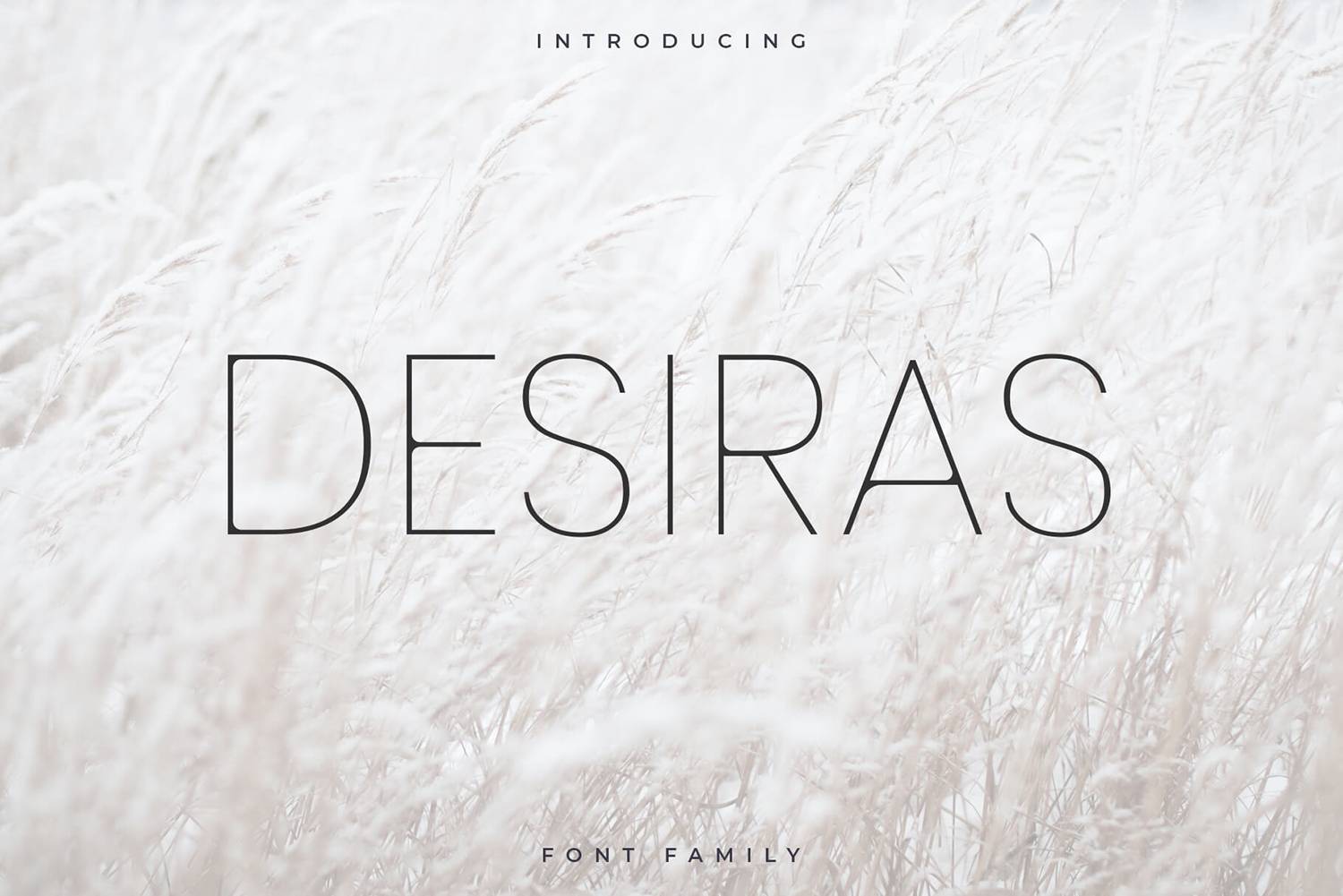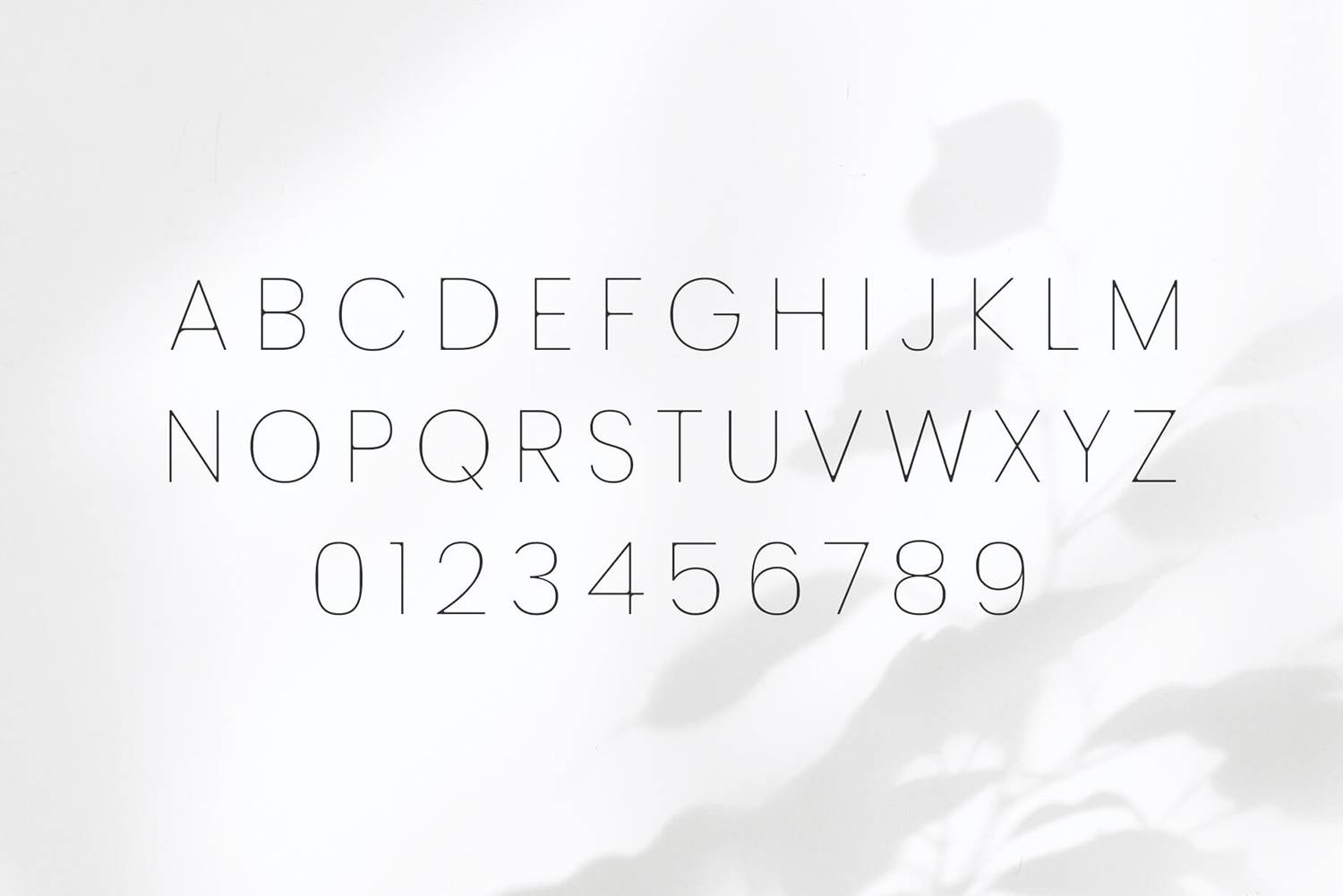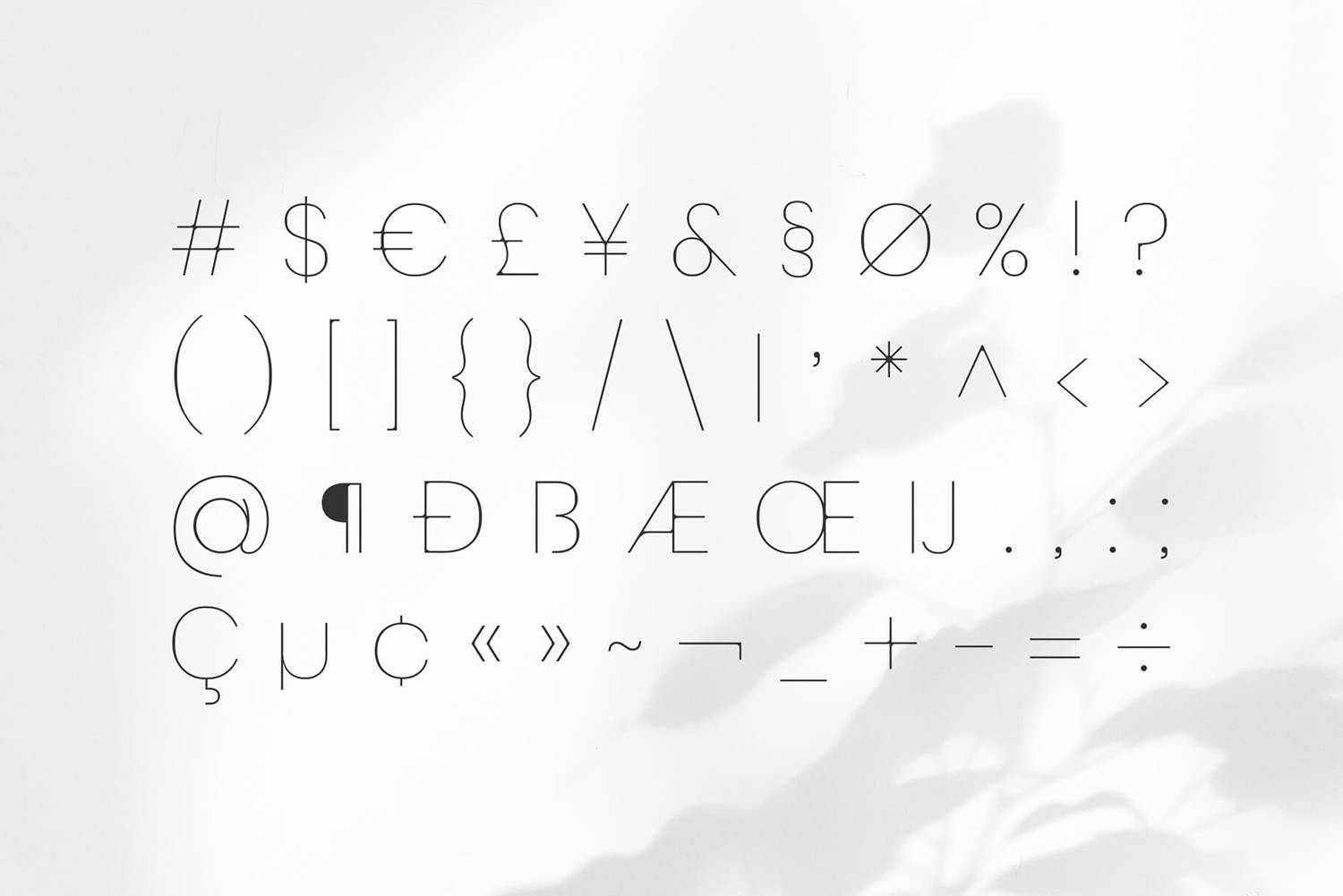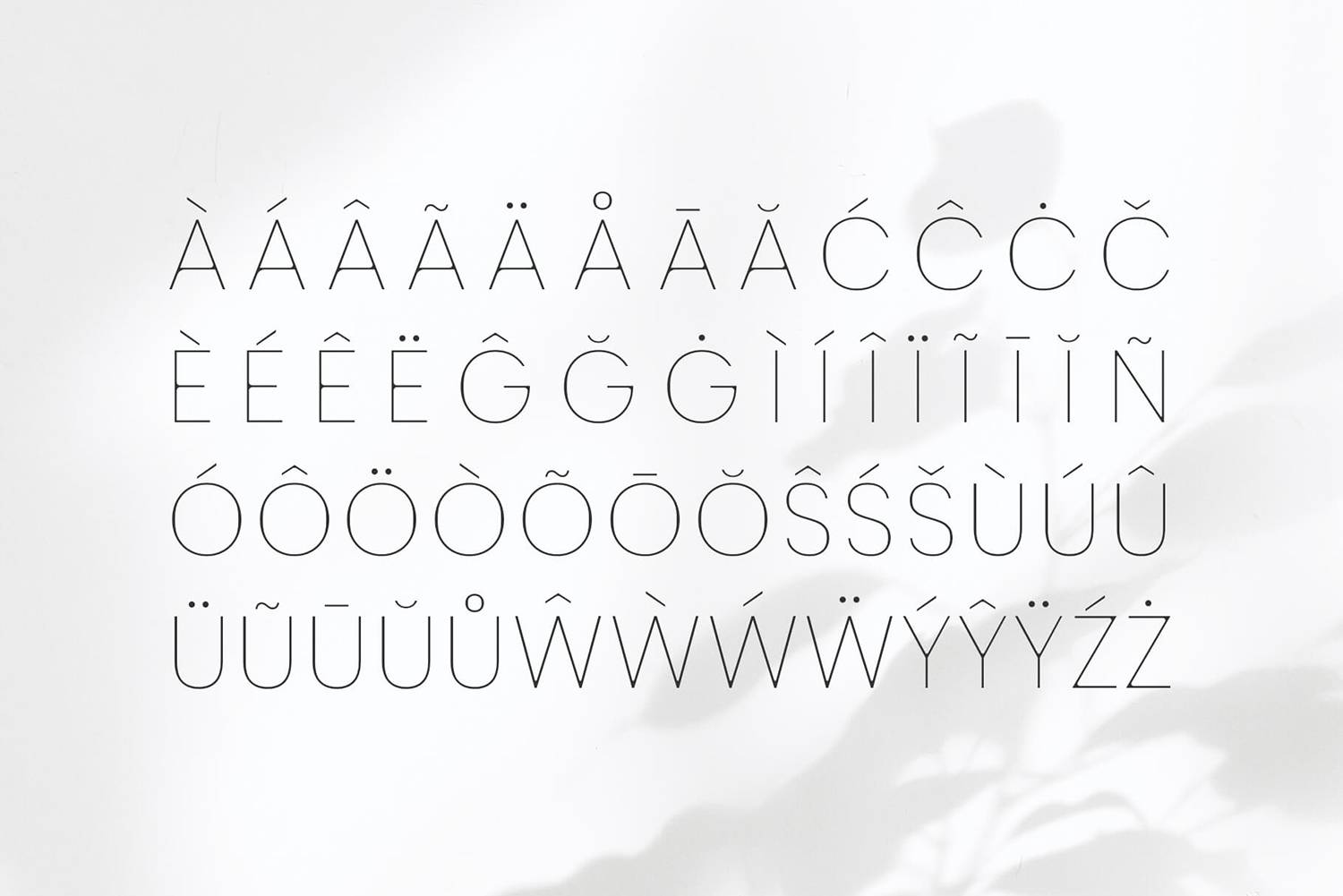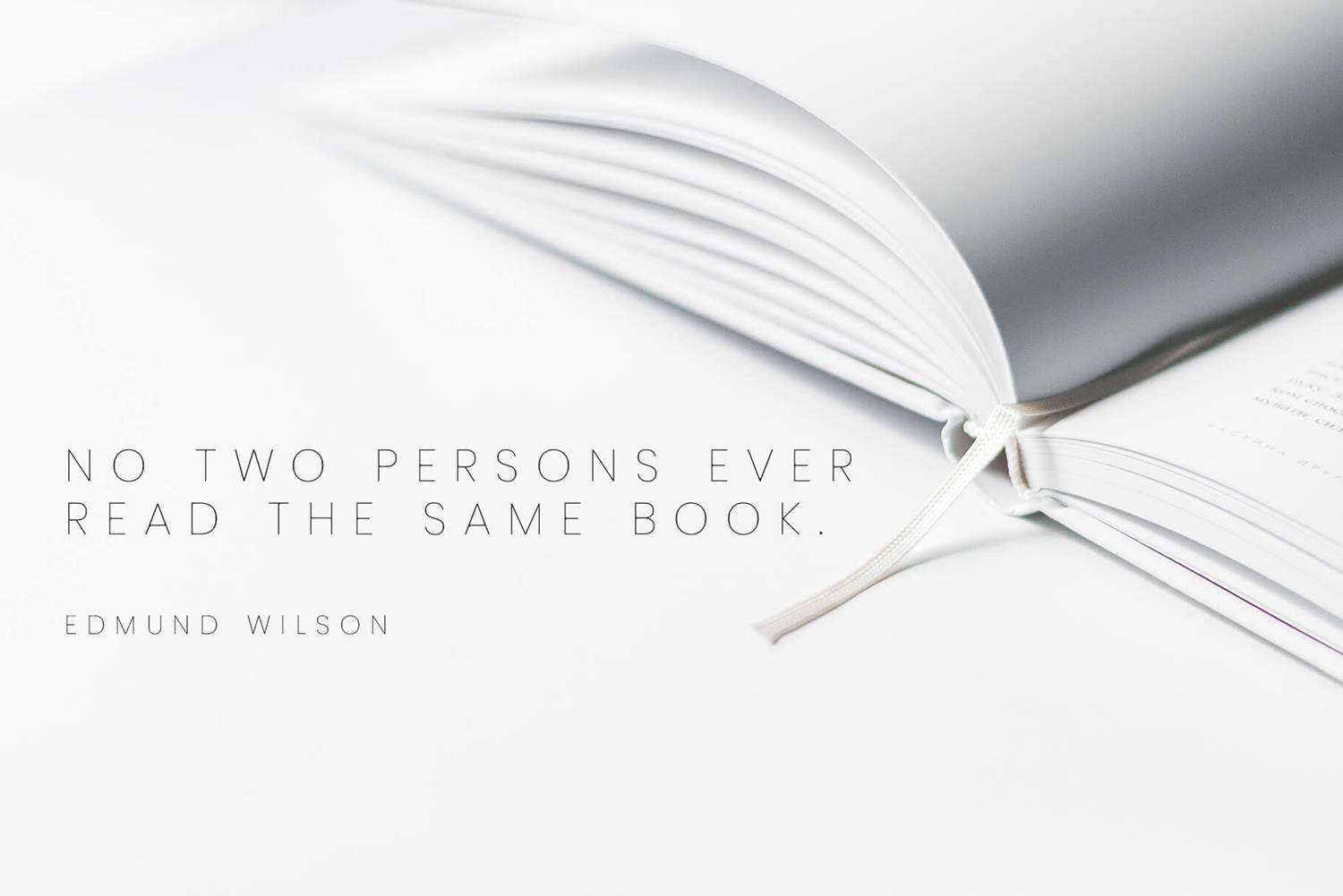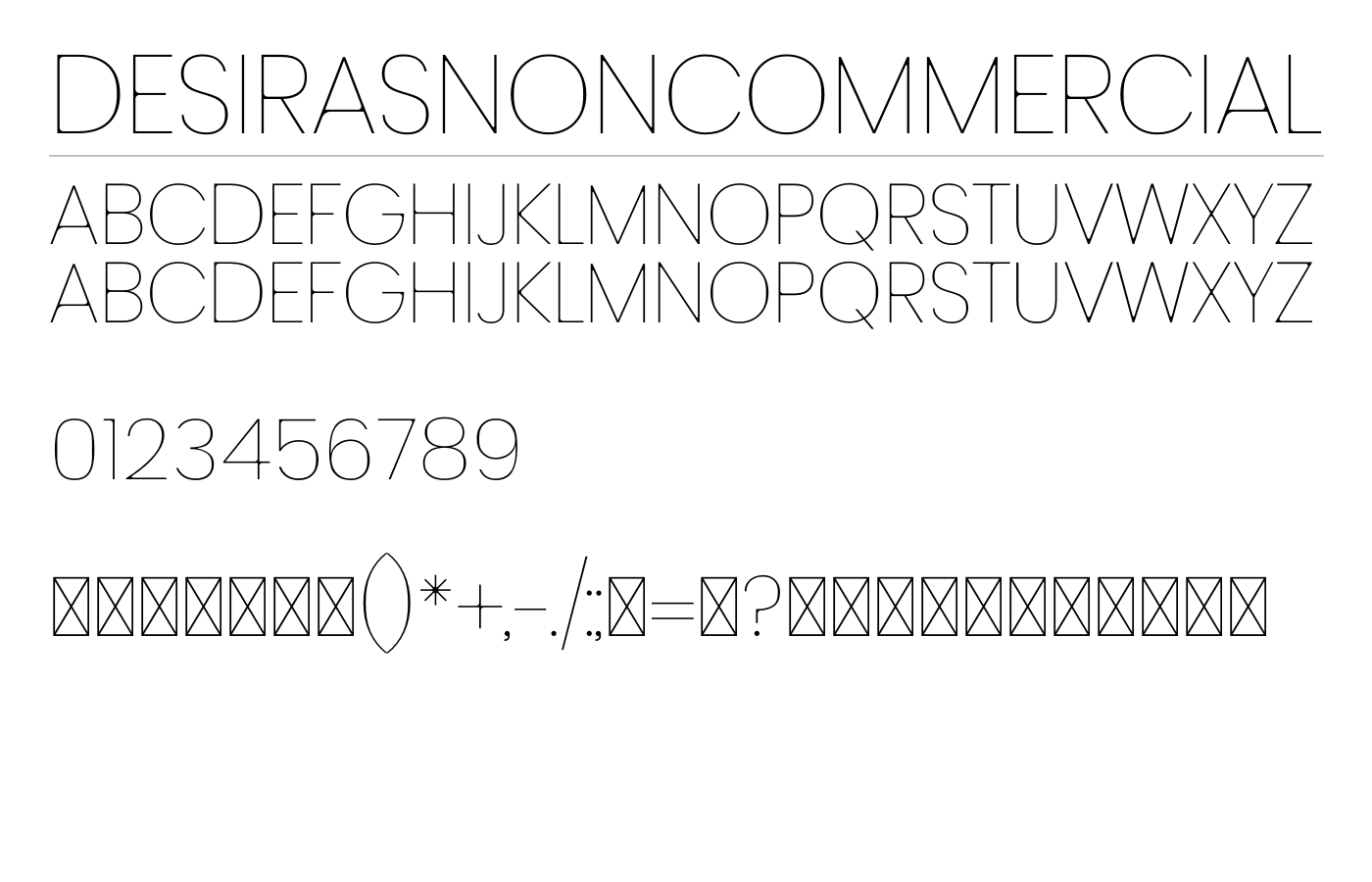
Desiras is a sleek and modern sans serif font characterized by its light weight and tall, narrow letterforms that give it an elegant, minimalist feel. Its clean lines and uniform stroke contrast make it ideal for contemporary branding, editorial designs, and stylish headlines where clarity and sophistication are key. This font works best in settings that require a refined, modern look without overwhelming visual weight, making it perfect for fashion, technology, and luxury industries.
Desiras Font
About Desiras Font
| Font family | Desiras Font |